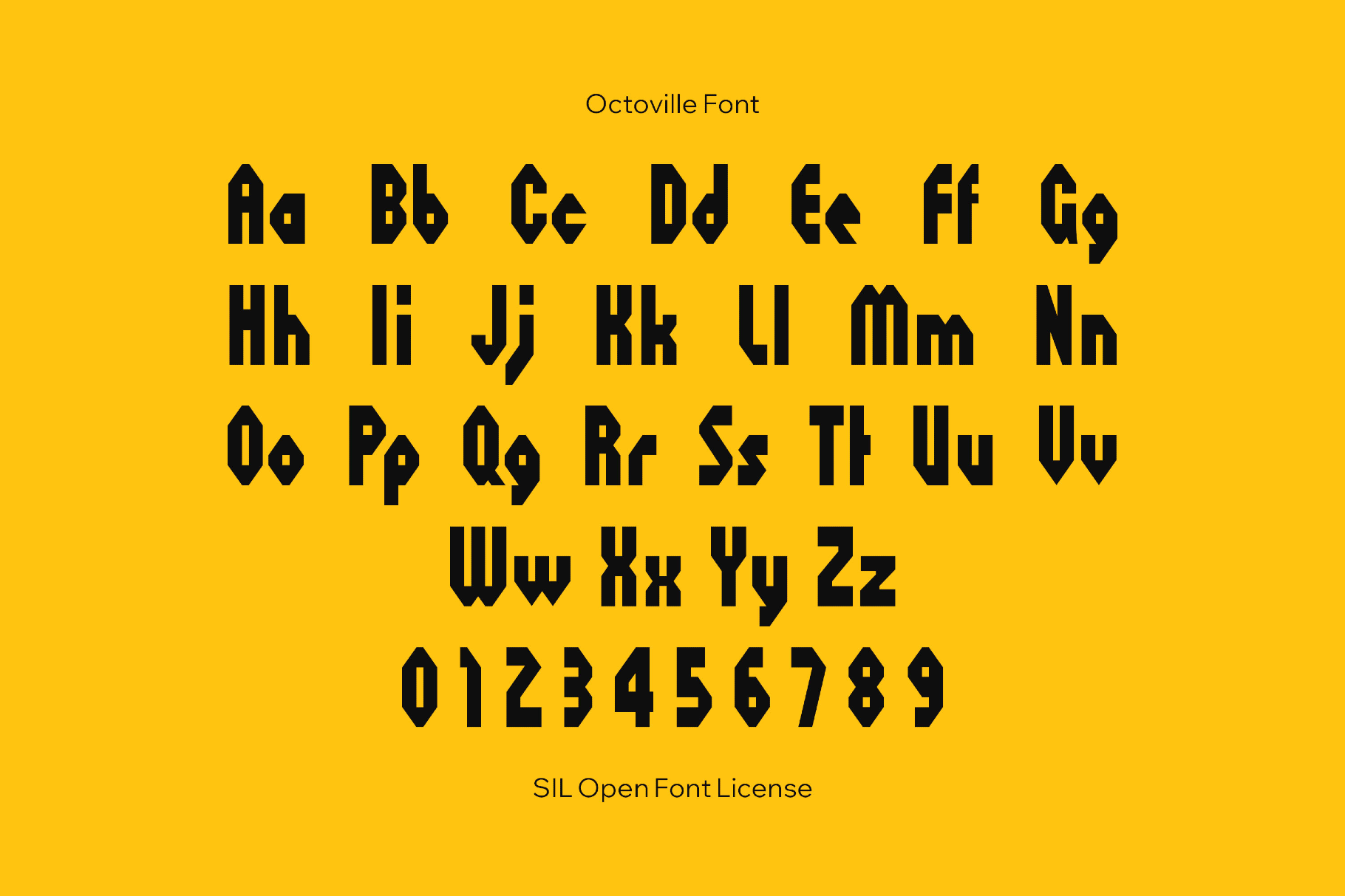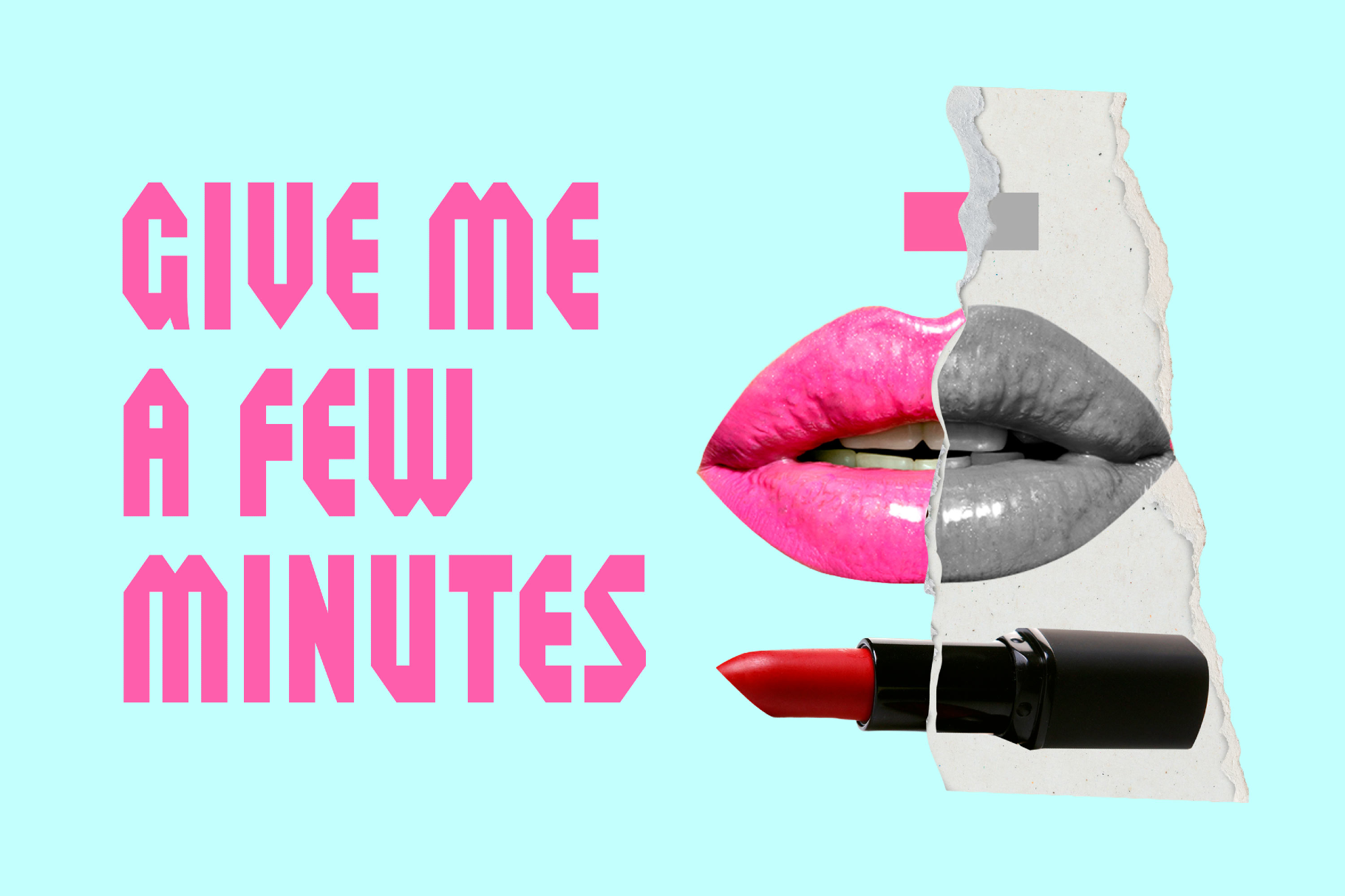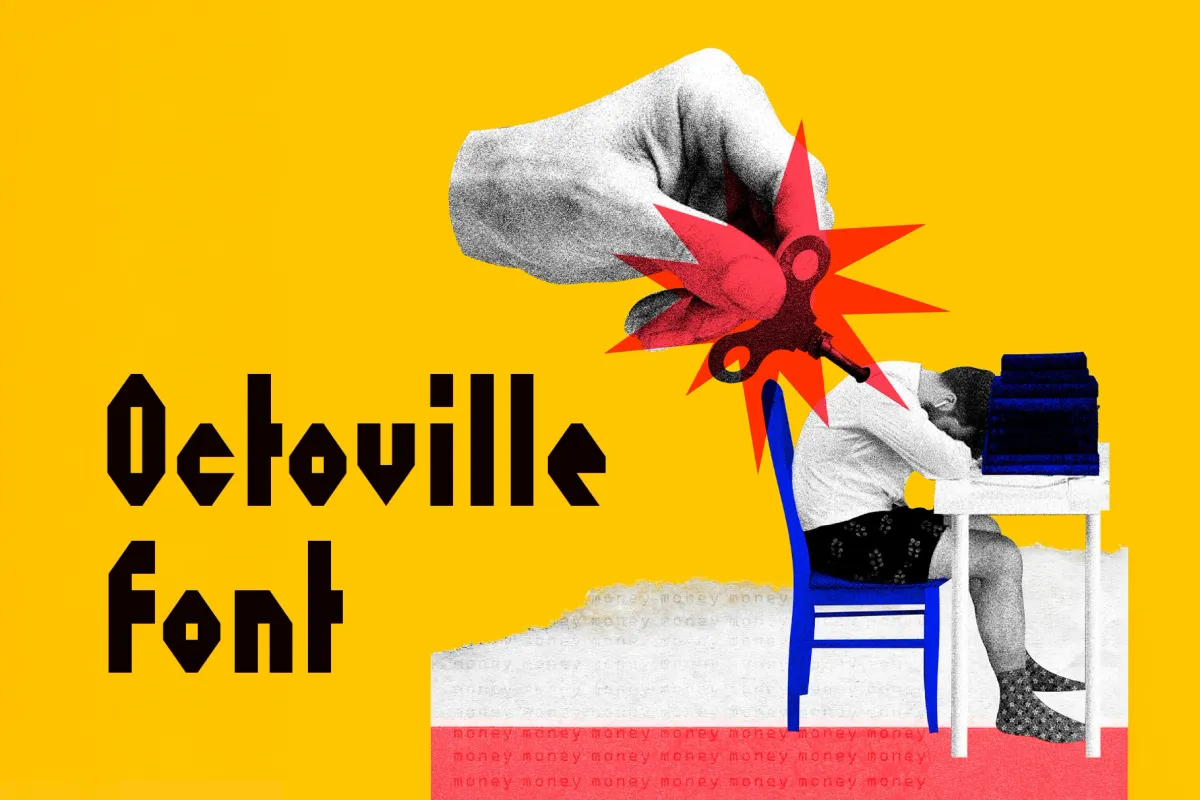
Octoville Font
Octoville
Octoville is a heavy octagonal font with angular cuts, blocky lines, and a modular rhythm like cyberpunk signage and early sci-fi games. The letters sit wide and squared with chamfered corners, so this display is well-suited to tech-event branding, streaming overlays, club or festival artwork, experimental landing pages, futuristic logos, poster headlines, game titles, interface mockups, electronic music artwork, and motion graphics.
- International characters with multilingual support across extended Latin scripts.
- Extended support for mathematical symbols and metrics.